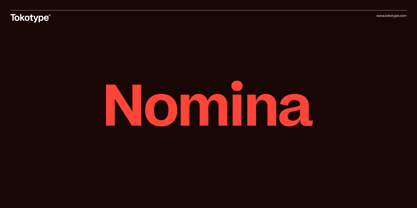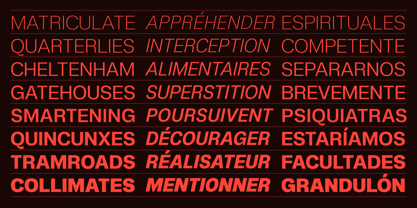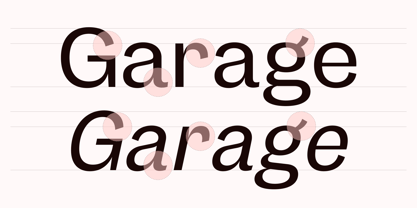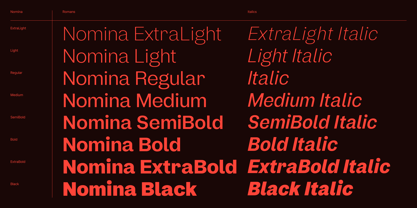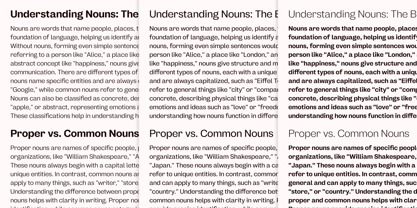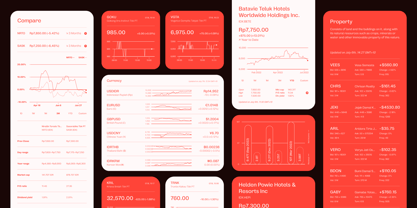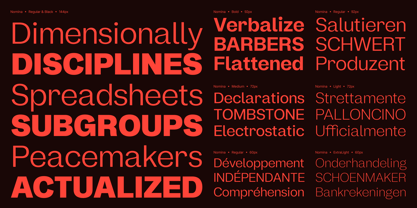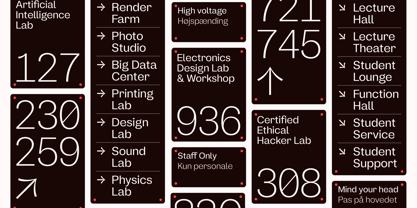
Nomina
by Tokotype
The Nomina Font Family was designed by Gumpita Rahayu and published by Tokotype. Nomina contains 17 styles and family package options. More about this family
Nomina is a sans-serif type family with a versatile range of weights, from ExtraLight to Black, across 16 styles—including italics. Inspired by classic Grotesk typefaces like Venus by the Bauer Type Foundry, it balances subtle contrast details with open apertures and sharp terminals, lending both clarity and character. These design choices create a distinctive rhythm while maintaining harmony among characters. With a rich set of alternates and OpenType features, Nomina adapts seamlessly to a wide variety of design applications, provided its distinct personality aligns with the intended aesthetic.